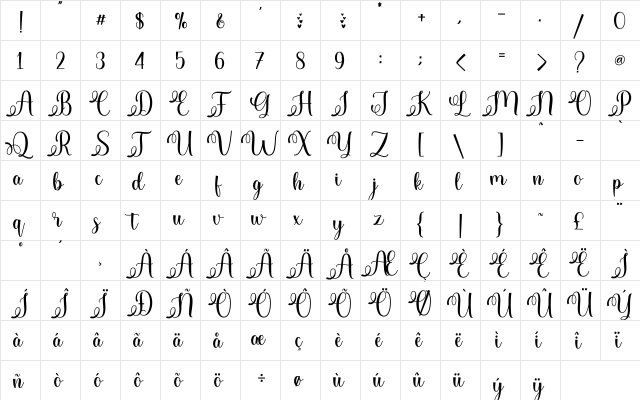
Haghisty_DEMO Regular Font Preview
Haghisty_DEMO Regular
Design Context for Haghisty_DEMO Typeface
Haghisty_DEMO is a composed and adaptable typeface that performs quietly and consistently across a wide range of design contexts.